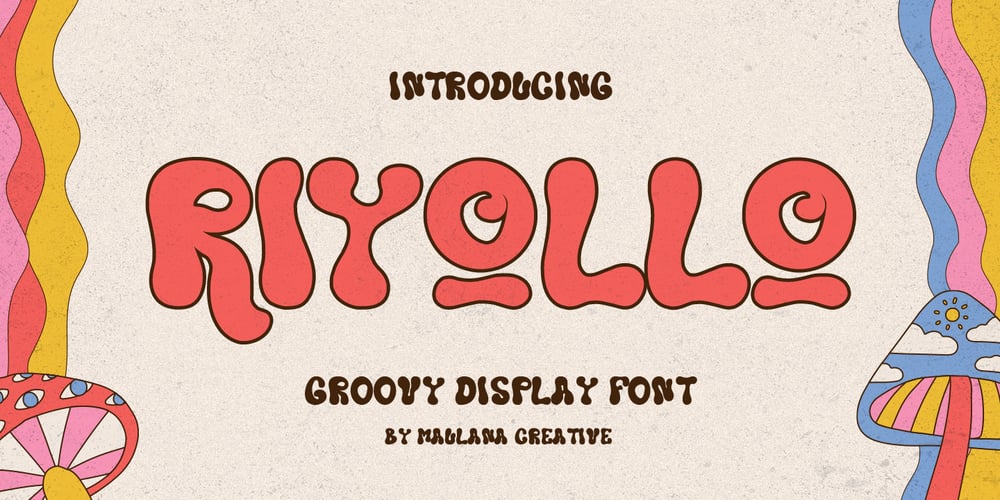
MC Riyollo Font Family was designed by Gilang Maulana and published by Maulana Creative. MC Riyollo contains 1 styles and family package options. Riyollo is a modern clean contemporary decorative font. Bold stroke, fun character with a bit of ligatures and alternates. To give you an extra creative work. Riyollo font support multilingual more than 100+ language. This font is good for logo design, Social media, Movie Titles, Books Titles, a short text even a long text letter and good for your secondary text font with script or serif. Make a stunning work with Riyollo font. Cheers, Maulana Creative